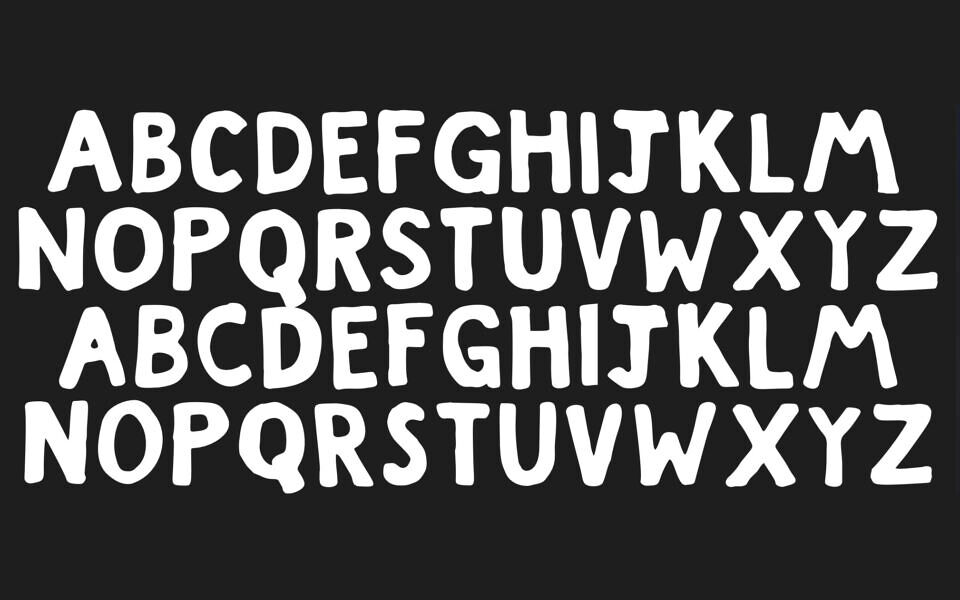
Pelicula is an Open-source hand-drawn display font with a distinctive retro and casual aesthetic. Inspired by the Poster-Film Collective, this typeface features bold, textured strokes and an imperfect, hand-painted look.
The uppercase letters possess a clean, robust structure, while subtle imperfections in the outlines enhance their character and authenticity. This unique style is ideal for creative projects aiming to evoke a nostalgic or emotionally resonant tone, like comics, making it suitable for graphic design and branding.